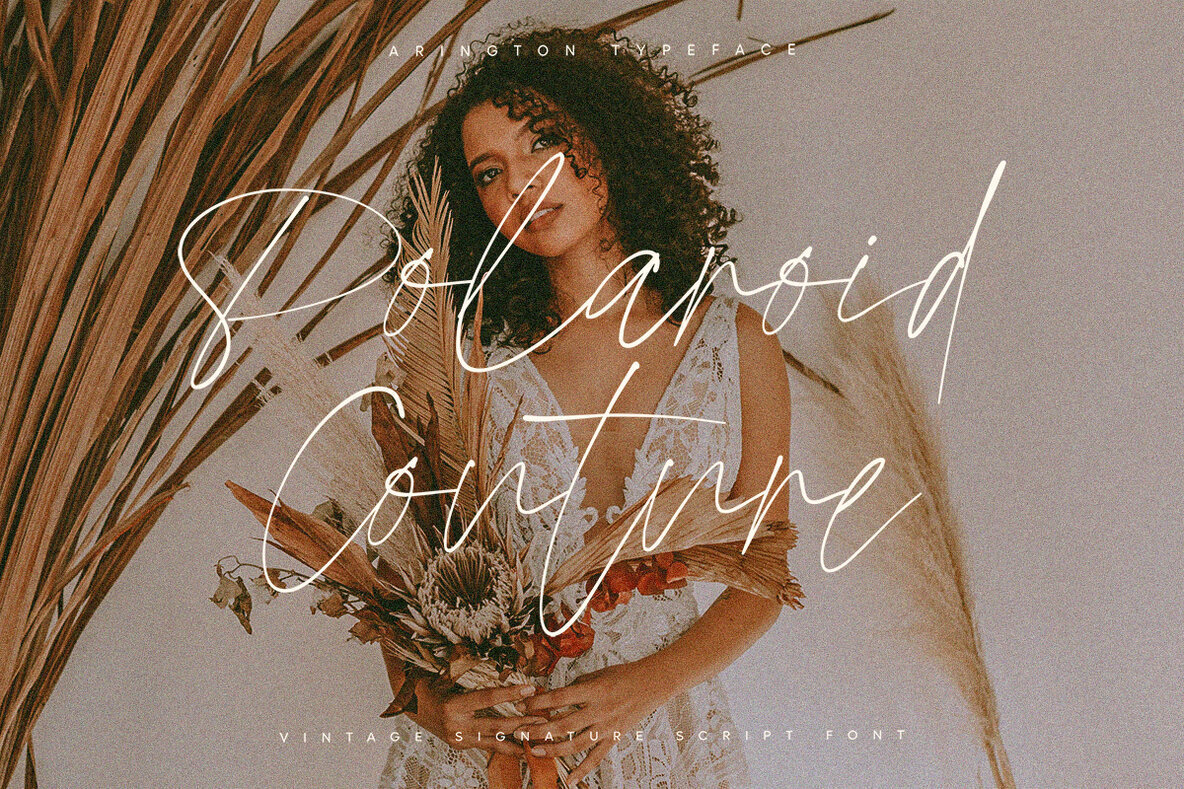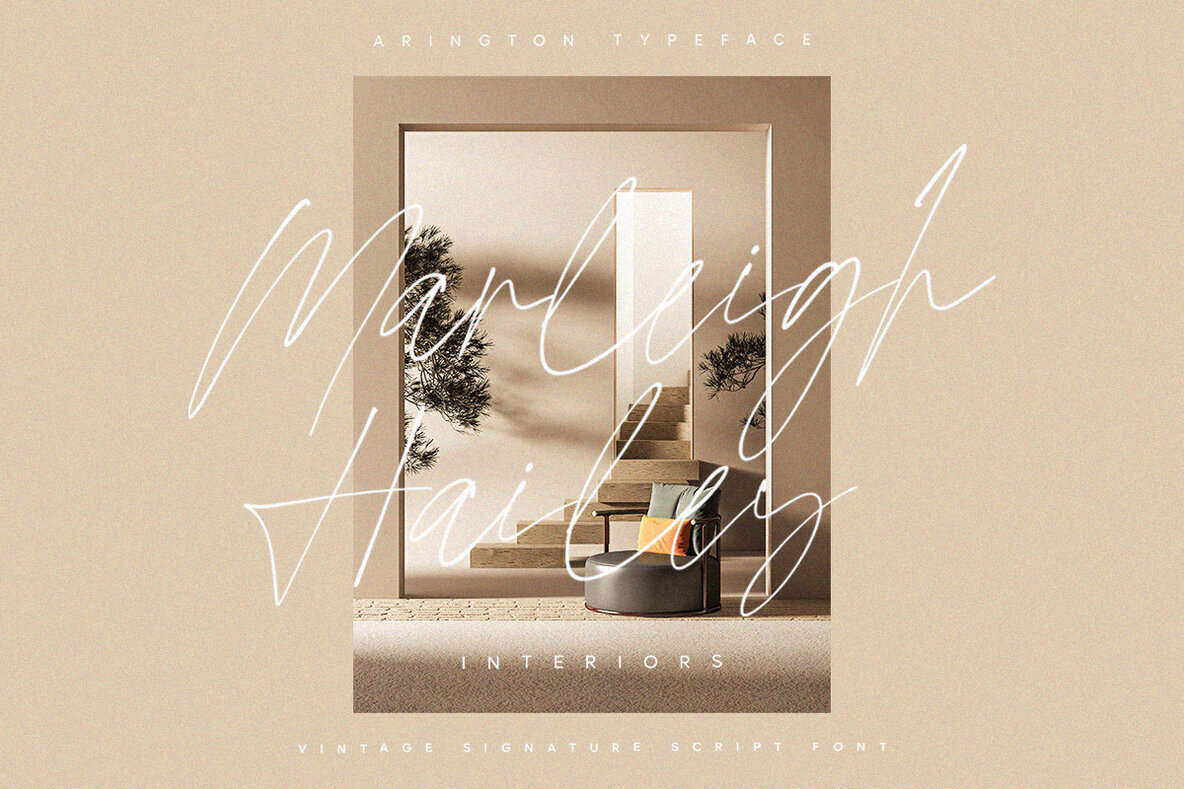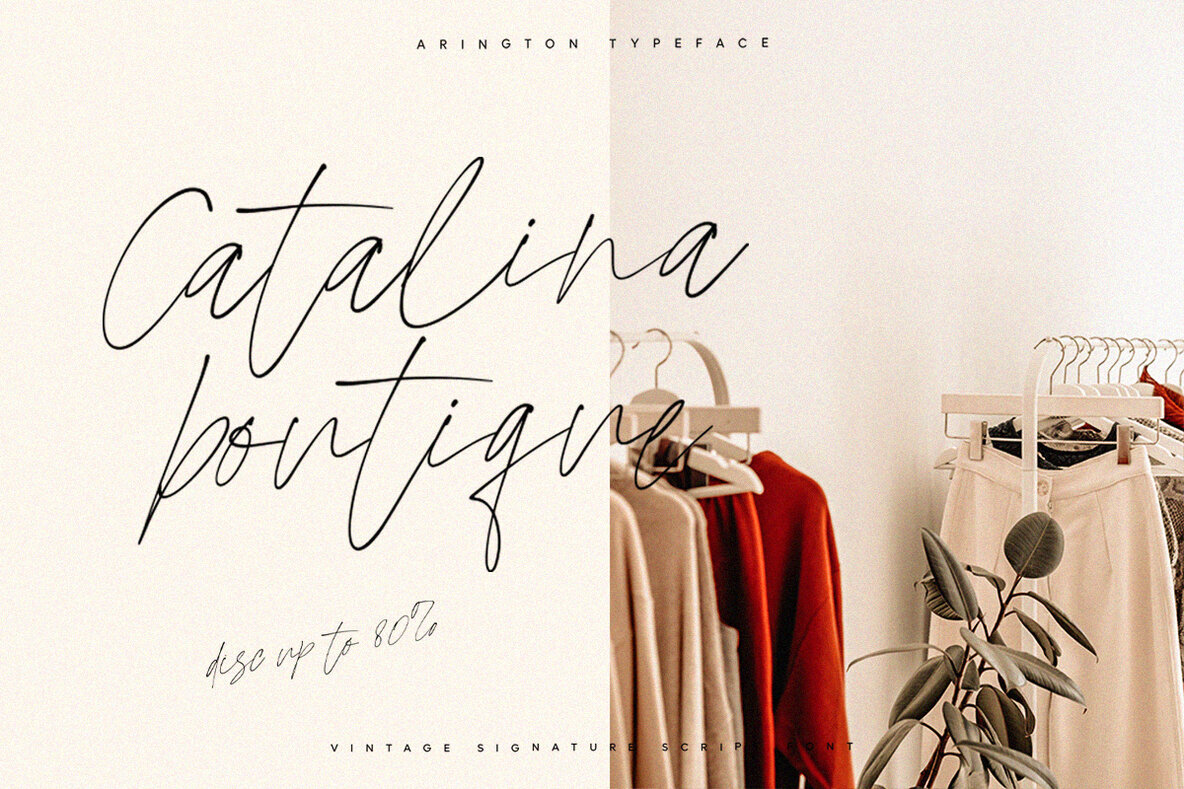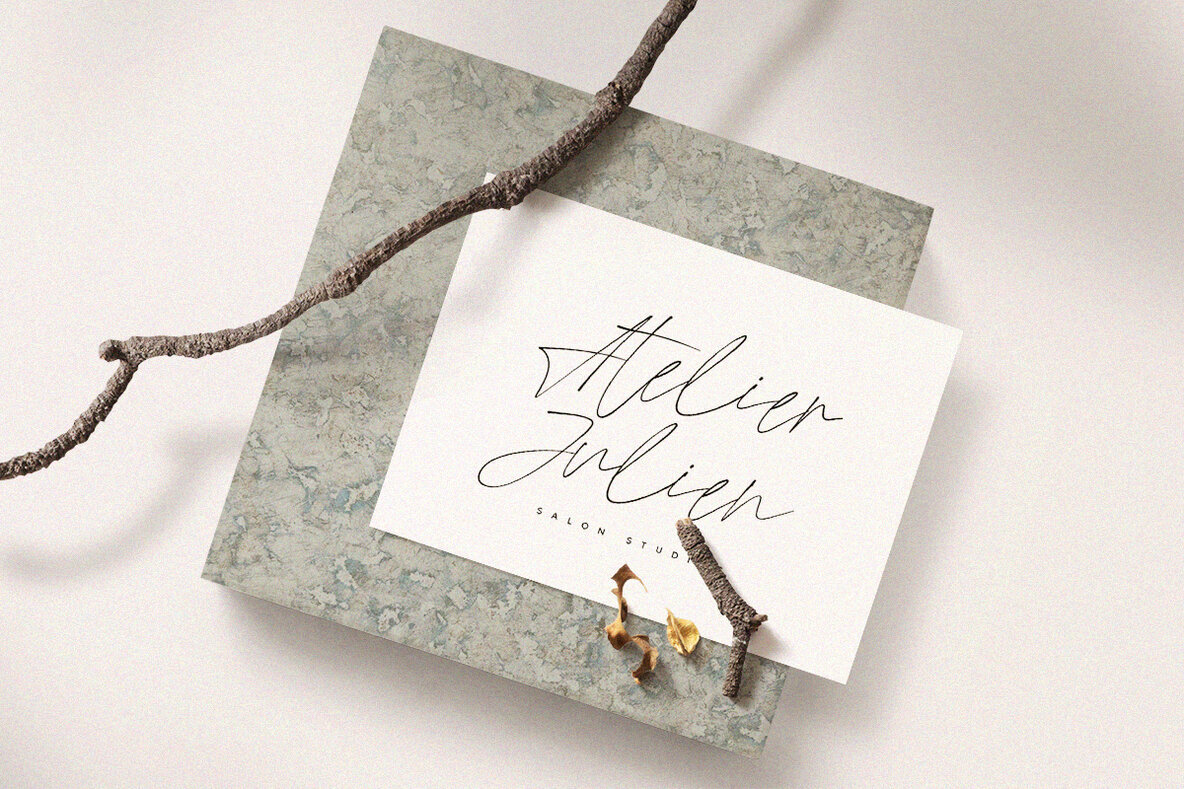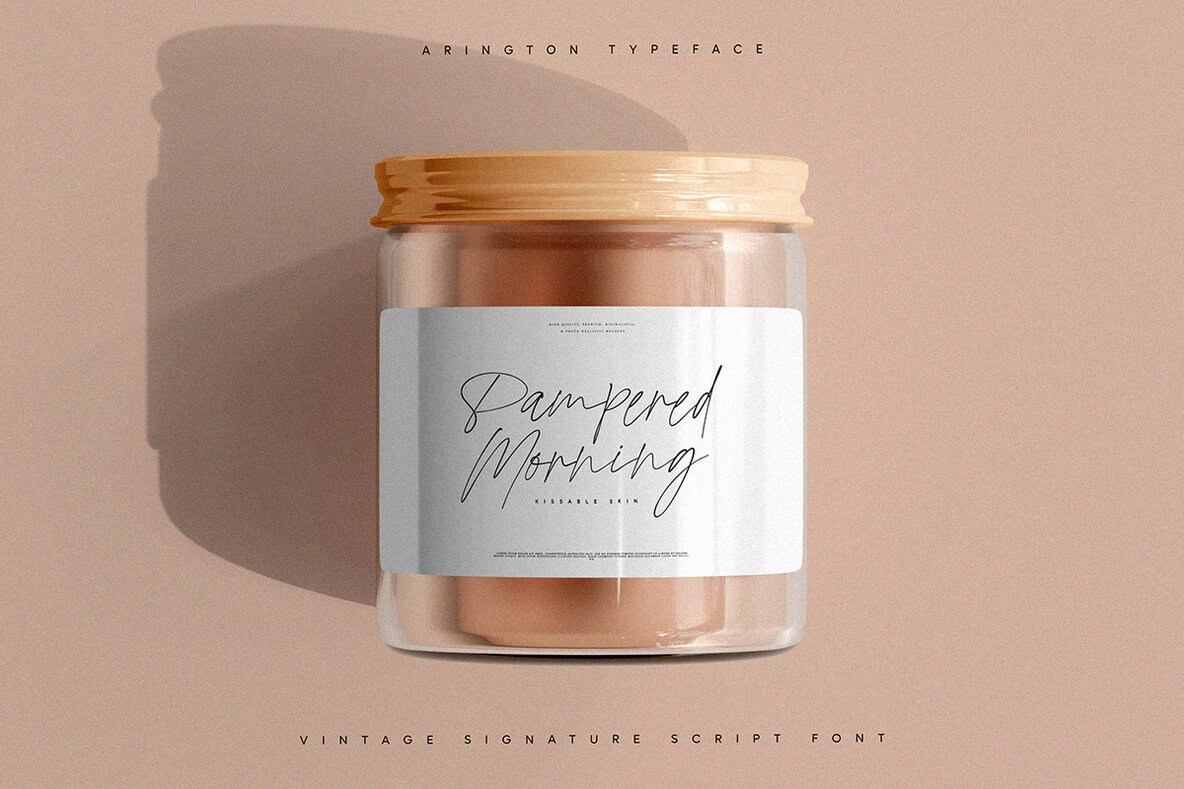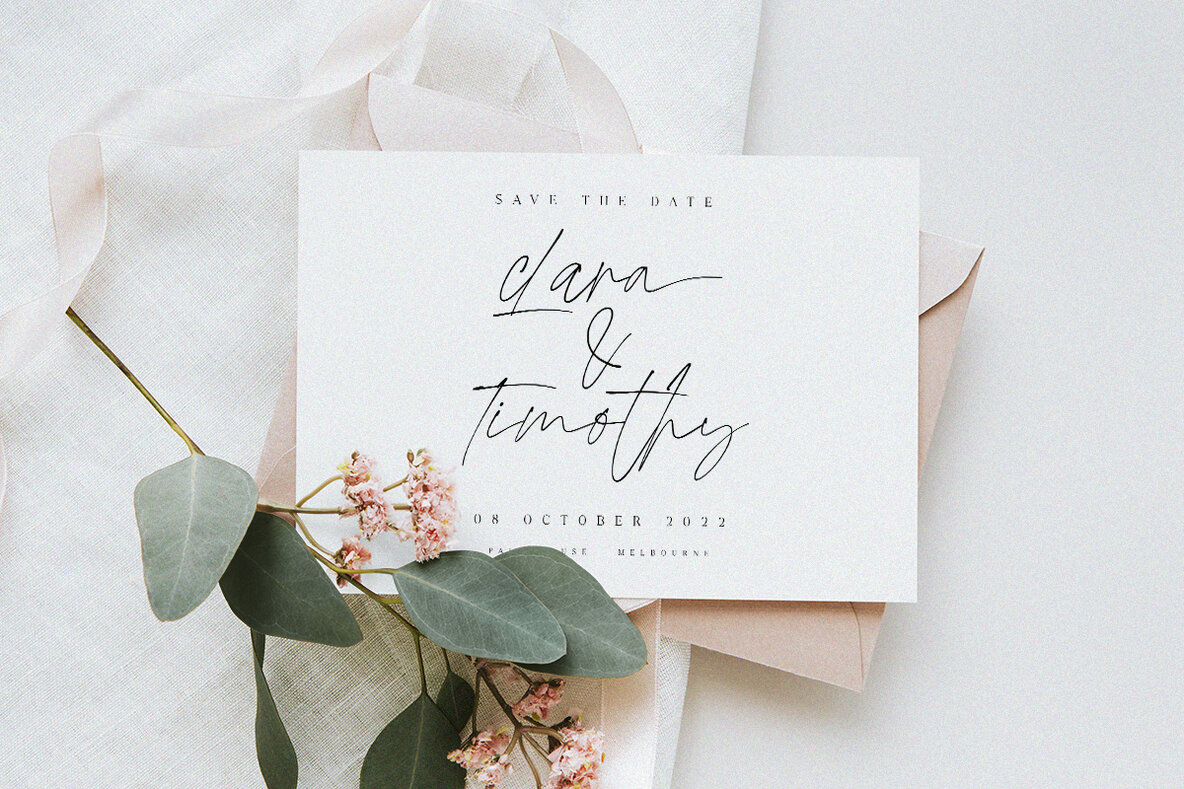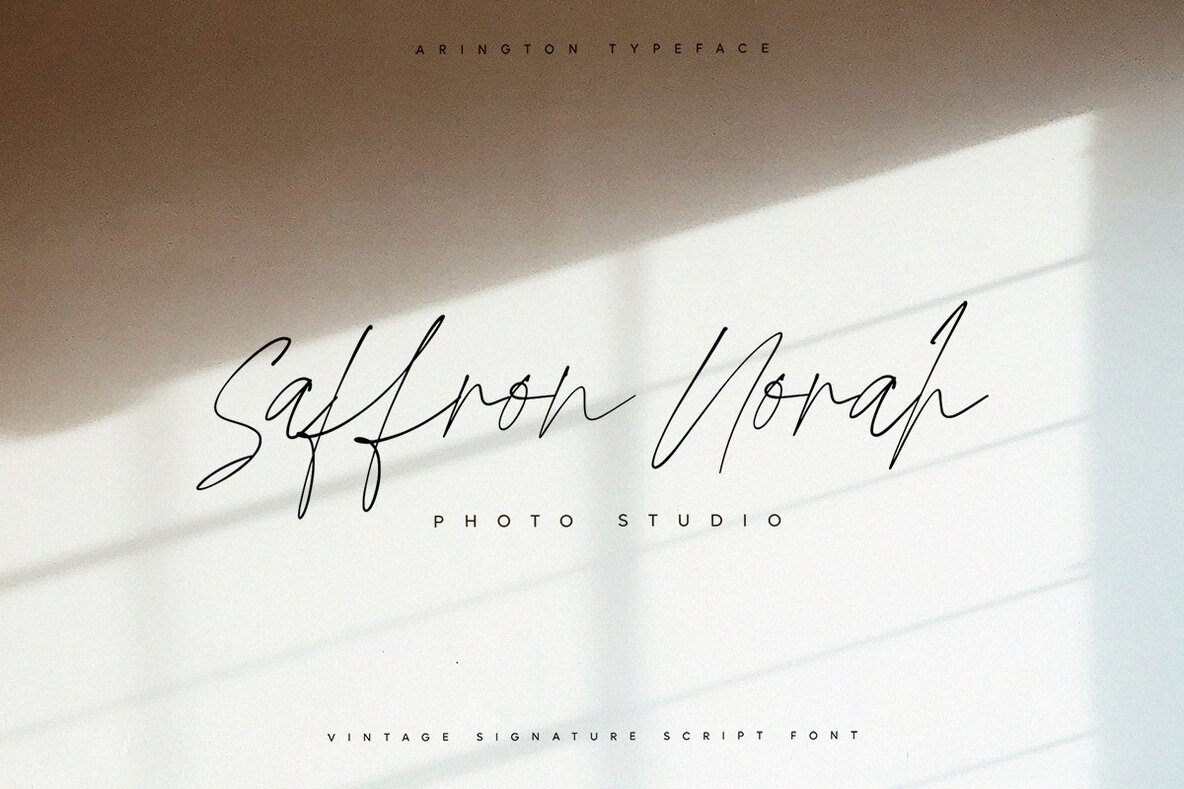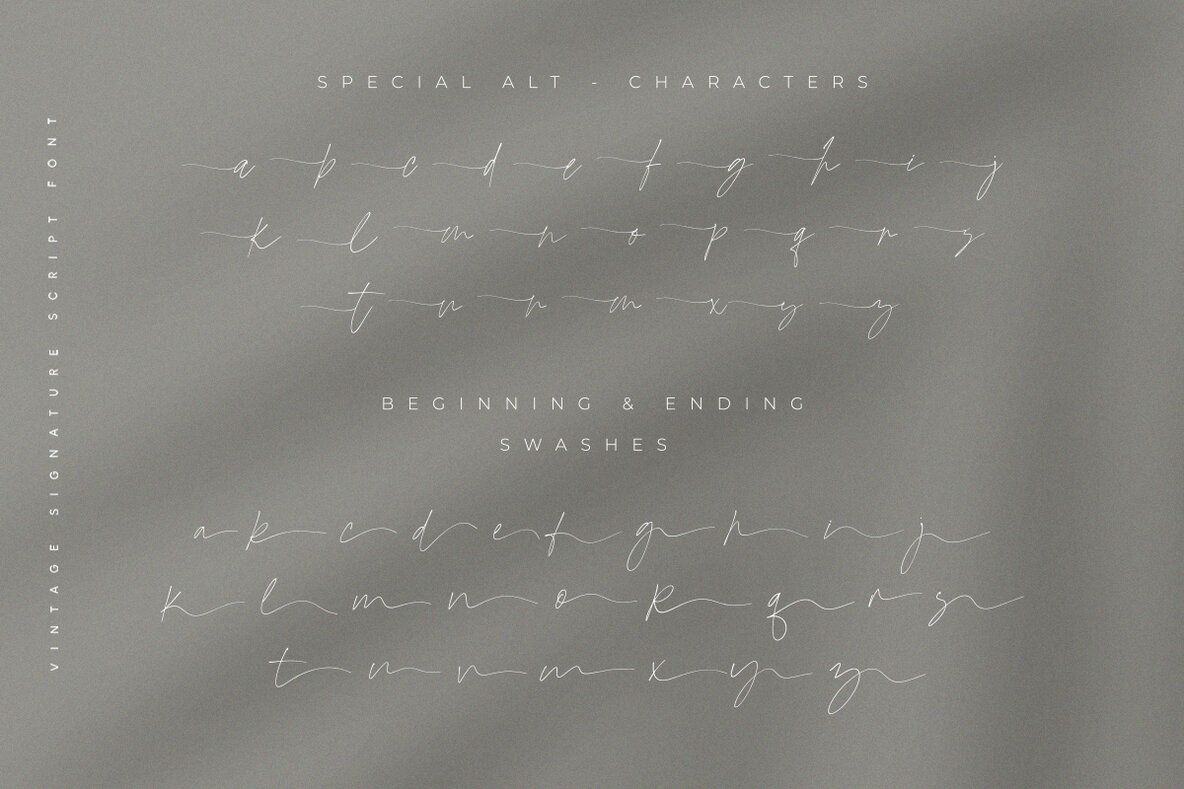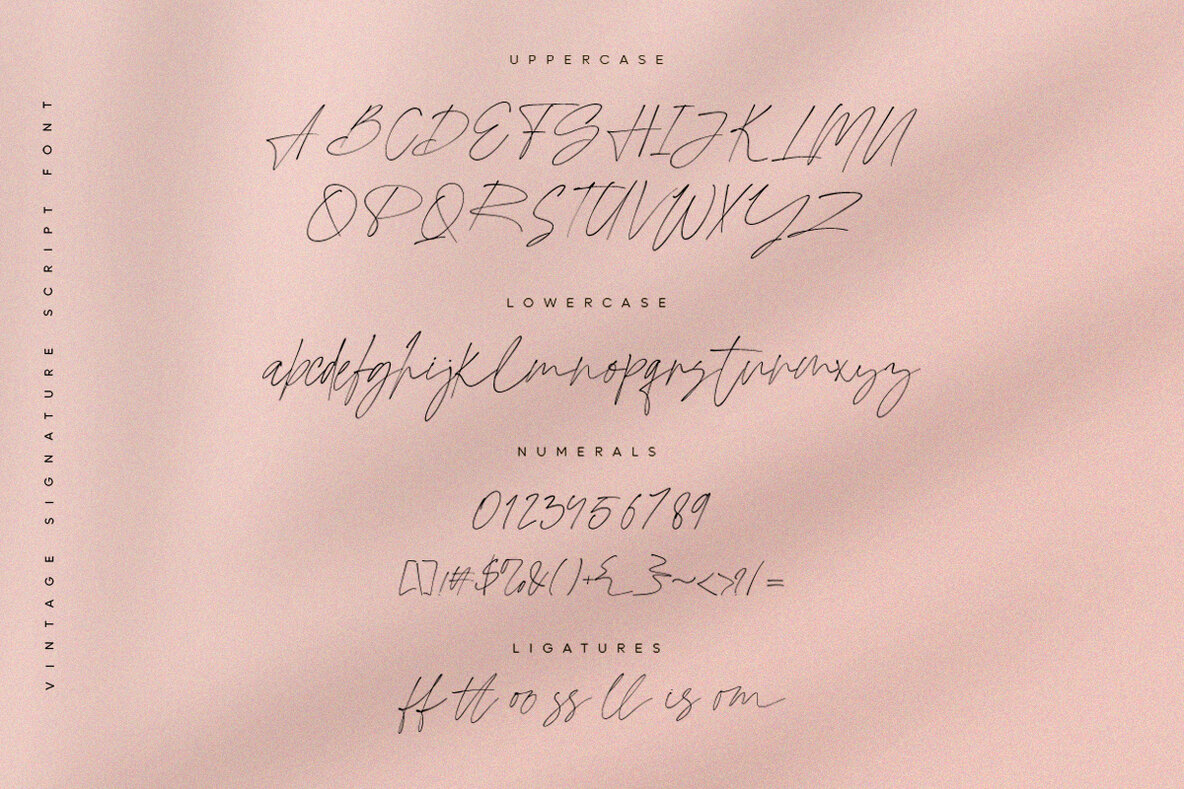
Arington Font
Arington
Arington by Pentagonistudio is a vintage script font imbued with the elegance of signature-style characters. Ideal for adding a touch of classic charm to your design projects, Arington captures the fluidity and grace often associated with handwritten signatures.Arington: A Vintage Script with Signature Flair